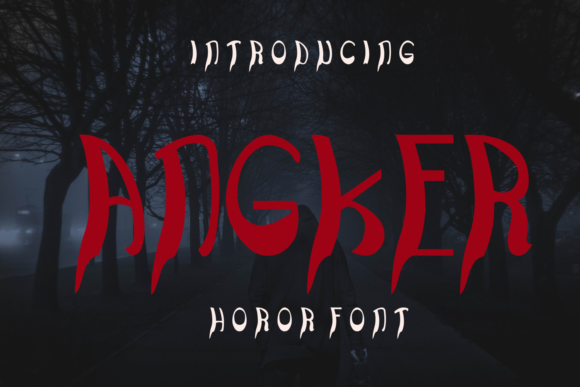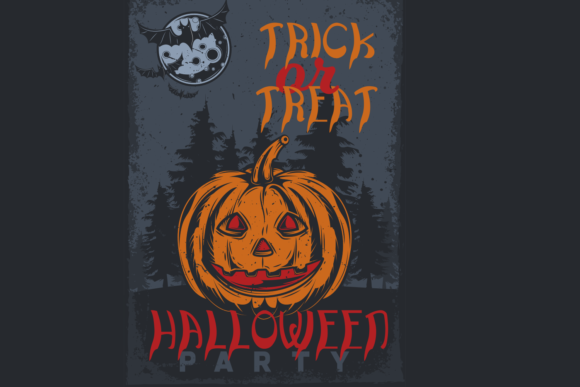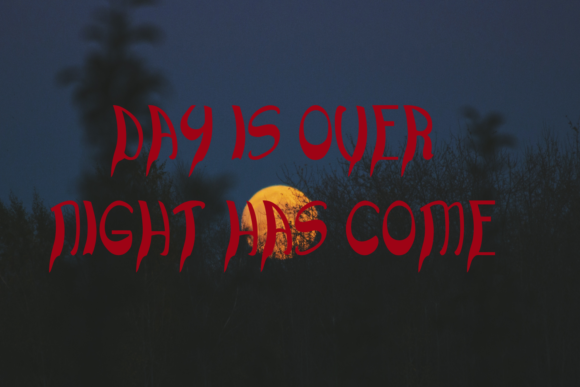
Unleash Your Creativity with Angker Font: A Rebellious and Dramatic Display Font
Are you tired of using the same old fonts in your designs? Do you want to add a touch of rebellion and drama to your creations? Look no further than Angker Font, a bold and eye-catching display font that’s perfect for designers and crafters looking to make a statement.
What is Angker Font?
Angker Font is a rebellious and dramatic display font designed to add a touch of edginess to your designs. With its bold and condensed letterforms, Angker Font is perfect for creating striking headlines, titles, and logos that demand attention.
Key Features of Angker Font
- Bold and Dramatic: Angker Font features bold and dramatic letterforms that are sure to make a statement in any design.
- Rebellious Style: With its edgy and condensed design, Angker Font is perfect for designers who want to add a touch of rebellion to their creations.
- Highly Versatile: Angker Font can be used for a wide range of design projects, from posters and flyers to logos and branding.
- Easily Readable: Despite its bold and condensed design, Angker Font is surprisingly easy to read, making it perfect for use in a variety of contexts.
Endless Possibilities with Angker Font
Angker Font is an incredibly versatile font that can be used in a wide range of design projects. Here are just a few ideas to get you started:
- Posters and Flyers: Use Angker Font to create eye-catching posters and flyers that demand attention.
- Logos and Branding: Angker Font is perfect for creating bold and memorable logos and branding materials.
- Social Media Graphics: Add a touch of rebellion to your social media graphics with Angker Font.
- Packaging Design: Use Angker Font to create striking packaging designs that stand out on store shelves.
Tips for Using Angker Font
Here are a few tips for getting the most out of Angker Font:
- Use it sparingly: Angker Font is a bold font, so use it sparingly to avoid overwhelming your design.
- Pair it with a neutral font: Pair Angker Font with a neutral font to create visual interest and add contrast to your design.
- Experiment with colors: Angker Font looks great in a wide range of colors, so don’t be afraid to experiment and find the perfect hue for your design.
| Font Name | Angker Font |
| Author | alanstudio99 |
Angker Font is a rebellious and dramatic display font that’s perfect for designers and crafters looking to add a touch of edginess to their creations. With its bold and condensed letterforms, Angker Font is highly versatile and can be used in a wide range of design projects. So why wait? Download Angker Font today and explore its endless possibilities!
Whether you’re a seasoned designer or just starting out, Angker Font is a great addition to your font library. Its unique and eye-catching design is sure to make your creations stand out, and its ease of use makes it perfect for designers of all skill levels.